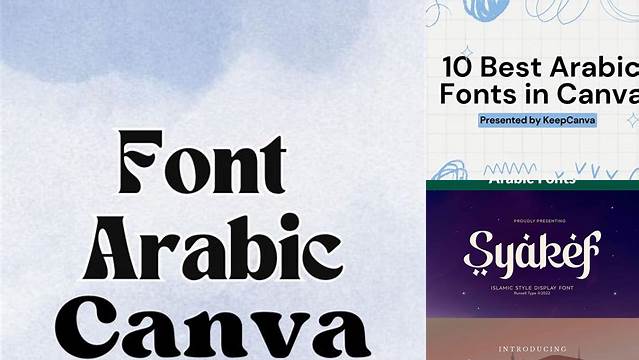
Free Arabic Fonts For Canva: Design Like A Pro!
Hey guys! Are you looking to spice up your Canva designs with some stunning Arabic fonts? Well, you've come to the right place! Designing with Arabic fonts can add a unique and authentic touch to your projects, whether you're creating social media graphics, presentations, or marketing materials. Let's dive into the world of free Arabic fonts you can use directly in Canva to make your designs truly stand out. Get ready to unleash your creativity!
Arabic Calligraphy Fonts for Canva
When it comes to free Arabic fonts on Canva, calligraphy fonts are a fantastic choice for adding an elegant and artistic flair to your designs. Arabic calligraphy, with its flowing lines and intricate details, has a rich history and cultural significance. Using these fonts can instantly elevate the visual appeal of your projects. For instance, imagine using a beautifully crafted calligraphy font for a wedding invitation or a poster promoting a cultural event. Canva offers a variety of free Arabic calligraphy fonts, each with its own distinct style and character. You can find fonts that mimic traditional scripts like Naskh, Thuluth, and Kufic, as well as more modern and stylized variations. Experiment with different fonts to see which one best complements your design aesthetic and conveys the desired message. Remember to consider factors such as readability and context when selecting a calligraphy font. While these fonts can be visually stunning, they may not be suitable for all types of content, especially if clarity is paramount. Always prioritize the overall impact of your design and ensure that the chosen font enhances rather than detracts from the message you're trying to communicate.
Modern Arabic Fonts on Canva
If you're aiming for a contemporary look, free Arabic fonts on Canva include several modern options that blend traditional aesthetics with a sleek, up-to-date feel. Modern Arabic fonts often feature simplified letterforms and clean lines, making them ideal for designs that require a touch of sophistication and readability. These fonts are versatile and can be used in a wide range of projects, from branding materials to website graphics. Imagine creating a logo for a tech startup using a modern Arabic font that conveys innovation and forward-thinking. Or perhaps designing a social media campaign for a fashion brand with a font that exudes style and elegance. Canva's selection of modern Arabic fonts offers plenty of choices to suit various design needs. Look for fonts that strike a balance between visual appeal and legibility. A well-designed modern font should be easy to read even at smaller sizes, ensuring that your message is clear and accessible to your audience. Don't be afraid to experiment with different font pairings and typography techniques to achieve the desired effect. Combining a modern Arabic font with a complementary Latin font can create a visually interesting and harmonious design.
Traditional Arabic Fonts in Canva
For projects that require an authentic and historical touch, free Arabic fonts on Canva also provide traditional options that hark back to the classic styles of Arabic typography. Traditional Arabic fonts are rooted in the rich heritage of Islamic calligraphy and feature letterforms that have been refined over centuries. These fonts are perfect for designs that aim to evoke a sense of tradition, culture, and timelessness. Consider using a traditional Arabic font for a book cover, a historical documentary, or a cultural heritage website. The intricate details and elegant curves of these fonts can add a layer of depth and authenticity to your designs. Canva offers a variety of traditional Arabic fonts, each with its own unique characteristics. Some fonts may closely resemble ancient scripts, while others may offer a more contemporary interpretation of traditional styles. When selecting a traditional font, it's important to consider the historical context and cultural relevance of the font. Ensure that the font aligns with the overall theme and message of your project. Also, pay attention to the readability of the font, especially if you're using it for body text. While traditional fonts can be visually stunning, they may not always be the most legible option for extended reading. Experiment with different font sizes and spacing to optimize readability.
Using Canva Font Pairing with Arabic Fonts
One of the best ways to enhance your designs is by mastering the art of font pairing, and when it comes to free Arabic fonts on Canva, this skill becomes even more crucial. Font pairing involves selecting two or more fonts that complement each other and work together harmoniously to create a visually appealing and balanced design. When pairing Arabic fonts with Latin fonts, it's important to choose fonts that share similar characteristics in terms of weight, style, and overall tone. For instance, if you're using a bold and modern Arabic font, you might pair it with a clean and sans-serif Latin font. Conversely, if you're using a more traditional and ornate Arabic font, you might pair it with a classic serif Latin font. Canva offers a variety of tools and resources to help you find the perfect font pairings for your projects. You can browse font combinations suggested by Canva's design experts, or experiment with different pairings on your own to see what works best. Pay attention to the visual hierarchy of your design and use font pairings to guide the viewer's eye. For example, you might use a bold Arabic font for headings and a lighter Latin font for body text. Remember, the goal of font pairing is to create a cohesive and visually appealing design that effectively communicates your message.
Designing Arabic Logos with Canva
Creating a logo that effectively represents your brand requires careful consideration of typography, and when it comes to free Arabic fonts on Canva, there are plenty of options to help you design a memorable and impactful logo. A well-designed logo should be visually appealing, easy to recognize, and representative of your brand's values and identity. When designing an Arabic logo with Canva, start by selecting a font that aligns with your brand's personality. If you're aiming for a modern and minimalist look, choose a clean and sans-serif Arabic font. If you're aiming for a more traditional and elegant look, choose a calligraphy-based font. Canva offers a variety of tools to customize your logo, including options to adjust font size, color, and spacing. You can also add graphic elements, such as icons and symbols, to enhance your logo's visual appeal. Experiment with different design options until you find a logo that perfectly captures your brand's essence. Remember to keep your logo simple and memorable. A cluttered and overly complex logo can be difficult to read and recognize. Also, ensure that your logo is scalable and looks good at different sizes, from small icons to large banners. By leveraging Canva's design tools and free Arabic fonts, you can create a professional-looking logo that helps your brand stand out from the competition.
Free Arabic Font Styles in Canva
Exploring the diverse range of free Arabic fonts styles available in Canva can significantly enhance your design capabilities. Canva offers a variety of Arabic font styles, each with its own unique characteristics and applications. From bold and impactful fonts to delicate and elegant scripts, you can find the perfect font to match your design's aesthetic. Understanding the different Arabic font styles can help you make informed decisions about typography and create visually appealing designs. Some popular Arabic font styles include Kufic, Naskh, Thuluth, and Diwani, each with its own historical and cultural significance. Kufic is known for its angular and geometric letterforms, making it ideal for logos and headings. Naskh is a more rounded and legible script, often used for body text and documents. Thuluth is a decorative and ornate script, often used for calligraphy and religious texts. Diwani is a flowing and cursive script, known for its elegance and sophistication. By exploring these different font styles, you can discover new ways to express your creativity and add depth to your designs. Experiment with different font combinations and typography techniques to achieve the desired effect. Remember to consider the context and purpose of your design when selecting a font style. A font that works well for a logo may not be suitable for body text, and vice versa.
Best Arabic Fonts for Social Media Graphics on Canva
When designing social media graphics, selecting the right font is crucial for capturing attention and conveying your message effectively. With a plethora of free Arabic fonts available on Canva, you can create visually stunning and engaging graphics that resonate with your target audience. The best Arabic fonts for social media graphics are those that are both visually appealing and easy to read, even at smaller sizes. Consider using bold and modern Arabic fonts for headings and captions, as they tend to stand out more on social media feeds. For body text, choose a legible and rounded Arabic font that is easy on the eyes. Canva offers a variety of pre-designed social media templates that incorporate Arabic fonts, making it easy to create professional-looking graphics in minutes. You can also customize these templates to match your brand's aesthetic and messaging. Experiment with different font pairings and color combinations to create visually appealing graphics that capture attention and drive engagement. Remember to optimize your graphics for different social media platforms, as each platform has its own size and resolution requirements. By leveraging Canva's design tools and free Arabic fonts, you can create social media graphics that help you stand out from the crowd and connect with your audience.
How to Animate Arabic Text in Canva
Adding animation to your Arabic text in Canva can bring your designs to life and make them more engaging. Canva offers a variety of animation options that you can use to create dynamic and visually appealing text effects. To animate Arabic text in Canva, simply select the text element that you want to animate and then click on the "Animate" button in the top toolbar. This will open up a panel with various animation options, such as fade, slide, and pop. Experiment with different animation effects to see which one works best for your design. You can also adjust the speed and intensity of the animation to create the desired effect. When animating Arabic text, it's important to consider the direction of the text. Arabic is written from right to left, so you may want to choose animation effects that reflect this direction. For example, you could use a slide-in animation that starts from the right side of the screen and moves towards the left. Also, be mindful of the overall design and avoid over-animating the text. Too much animation can be distracting and detract from the message you're trying to convey. By using Canva's animation tools effectively, you can create visually stunning Arabic text effects that capture attention and enhance your designs.
Arabic Font Licensing for Commercial Use in Canva
Before using any free Arabic fonts in your commercial projects on Canva, it's crucial to understand the licensing terms associated with each font. Font licenses specify how you are allowed to use the font, including whether you can use it for commercial purposes. Some fonts are free for personal use only, while others are free for both personal and commercial use. Canva provides information about the licensing terms for each font in its library. You can usually find this information in the font details section. If you're unsure about the licensing terms of a particular font, it's always best to err on the side of caution and contact the font designer or foundry for clarification. Using a font without the proper license can result in legal issues and financial penalties. When using free Arabic fonts for commercial use in Canva, make sure to keep a record of the font's license agreement. This will help you demonstrate that you have the necessary rights to use the font in your projects. Also, be aware that some font licenses may require you to give attribution to the font designer or foundry. By understanding and adhering to font licensing terms, you can protect yourself from legal issues and ensure that you're using fonts responsibly.
Creating Bilingual Designs with Arabic Fonts on Canva
In today's globalized world, creating bilingual designs is becoming increasingly important, and Canva makes it easy to incorporate free Arabic fonts alongside other languages. Designing with both Arabic and another language, such as English, can broaden your reach and appeal to a wider audience. When creating bilingual designs with Arabic fonts on Canva, it's important to choose fonts that complement each other visually and stylistically. Consider using a modern Arabic font with a clean and sans-serif Latin font, or a traditional Arabic font with a classic serif Latin font. Canva offers a variety of tools to adjust the size, spacing, and alignment of your text, making it easy to create visually balanced and harmonious bilingual designs. Pay attention to the visual hierarchy of your design and use font pairings to guide the viewer's eye. For example, you might use a bold Arabic font for headings and a lighter Latin font for body text. Also, be mindful of the cultural context of your design and ensure that the Arabic and other languages are presented in a respectful and appropriate manner. By using Canva's design tools and free Arabic fonts effectively, you can create bilingual designs that resonate with your target audience and help you achieve your communication goals.
Arabic Font Generators Compatible with Canva
While Canva offers a variety of free Arabic fonts, you might want to explore other options and create your own unique font styles. Arabic font generators can help you create custom Arabic fonts that you can then upload to Canva and use in your designs. These font generators typically allow you to customize various aspects of the font, such as the letterforms, weight, and spacing. Some popular Arabic font generators include FontStruct, BirdFont, and MetaFont. Before using an Arabic font generator, it's important to understand the licensing terms associated with the generated fonts. Some font generators may allow you to use the generated fonts for commercial purposes, while others may restrict their use to personal projects. Also, be aware that creating a high-quality Arabic font can be a time-consuming and complex process. It requires a good understanding of Arabic calligraphy and typography principles. If you're not familiar with these principles, you may want to consider using pre-made Arabic fonts instead. However, if you're looking to create a truly unique and personalized design, using an Arabic font generator can be a great option. Just make sure to do your research and understand the licensing terms before using the generated fonts in your projects.
Resources for Learning Arabic Typography for Canva Users
To make the most of free Arabic fonts on Canva, it's beneficial to deepen your understanding of Arabic typography. Learning the fundamentals of Arabic typography can help you create more visually appealing and effective designs. There are many resources available online and in print that can help you learn about Arabic typography, including books, articles, tutorials, and online courses. Some popular resources for learning Arabic typography include "Arabic Typography: A Comprehensive Sourcebook" by Huda Smitshuijzen AbiFares, "The Art of Arabic Calligraphy" by Mamoun Sakkal, and various online tutorials and courses available on platforms like Skillshare and Udemy. These resources cover a wide range of topics, including the history of Arabic calligraphy, the different Arabic script styles, and the principles of Arabic typography. By studying these resources, you can gain a deeper appreciation for the beauty and complexity of Arabic typography and learn how to use Arabic fonts effectively in your designs. Also, consider joining online communities and forums dedicated to Arabic typography, where you can connect with other designers and learn from their experiences. By continuously learning and expanding your knowledge of Arabic typography, you can create visually stunning and culturally sensitive designs that resonate with your target audience.
The Impact of Arabic Fonts on Cultural Design in Canva
Using free Arabic fonts in Canva can significantly enhance the cultural relevance and impact of your designs. Arabic fonts are an integral part of Arabic culture and heritage, and using them in your designs can help you connect with your audience on a deeper level. When designing for Arabic-speaking audiences or creating designs that celebrate Arabic culture, it's important to choose fonts that are authentic and respectful. Avoid using fonts that are poorly designed or that misrepresent Arabic calligraphy traditions. Canva offers a variety of high-quality Arabic fonts that are suitable for cultural design projects. Consider using traditional Arabic fonts for projects that aim to evoke a sense of history and tradition, and modern Arabic fonts for projects that aim to convey a contemporary and forward-thinking message. Also, be mindful of the cultural context of your design and ensure that the fonts are used in a way that is appropriate and respectful. For example, avoid using religious fonts in designs that are not related to religion. By using Arabic fonts thoughtfully and respectfully, you can create designs that celebrate Arabic culture and heritage and that resonate with your target audience. Remember to research the cultural significance of different fonts and design elements to ensure that your designs are culturally sensitive and appropriate.
Free vs Premium Arabic Fonts for Canva: What to Choose?
When choosing free Arabic fonts for your Canva projects, you might wonder whether to opt for free or premium options. Both free and premium Arabic fonts have their own advantages and disadvantages, and the best choice for you will depend on your specific needs and budget. Free Arabic fonts are a great option if you're on a tight budget or if you're just starting out with design. They can provide you with a wide range of options to experiment with and create visually appealing designs. However, free Arabic fonts may not always be of the highest quality, and they may have limited licensing terms. Premium Arabic fonts, on the other hand, typically offer higher quality designs, more comprehensive licensing terms, and additional features such as alternate characters and ligatures. They can also provide you with access to more unique and exclusive font styles. However, premium Arabic fonts can be more expensive than free fonts, and they may not be necessary for all projects. When deciding between free and premium Arabic fonts, consider the following factors: the quality of the font, the licensing terms, the features offered, and your budget. If you need a high-quality font for a commercial project, it may be worth investing in a premium option. However, if you're just creating designs for personal use, a free font may be sufficient. Ultimately, the best choice for you will depend on your individual needs and preferences.
Mastering Arabic Typography in Canva: Tips and Tricks
To truly master the art of using free Arabic fonts in Canva, it's essential to learn some key tips and tricks. Mastering Arabic typography can help you create visually stunning and effective designs that capture attention and convey your message effectively. One important tip is to pay attention to the kerning and tracking of your Arabic fonts. Kerning refers to the spacing between individual letters, while tracking refers to the overall spacing between all letters in a word or phrase. Adjusting the kerning and tracking can improve the readability and visual appeal of your text. Canva offers tools to adjust the kerning and tracking of your fonts, allowing you to fine-tune the appearance of your text. Another tip is to experiment with different font sizes and line heights. The size of your font can affect its readability and impact, while the line height can affect the overall flow of your text. Canva allows you to easily adjust the font size and line height of your text, giving you full control over its appearance. Additionally, consider using different font weights and styles to create visual hierarchy and emphasize key words or phrases. Canva offers a variety of font weights and styles, such as bold, italic, and underline, that you can use to add visual interest to your text. By mastering these tips and tricks, you can create visually stunning and effective Arabic typography in Canva.
Common Mistakes to Avoid When Using Arabic Fonts in Canva
Even with a great selection of free Arabic fonts in Canva, it's easy to make mistakes if you're not careful. Avoiding common pitfalls when using Arabic fonts can help you create more professional and visually appealing designs. One common mistake is using fonts that are not legible. Arabic fonts can be intricate and complex, and some fonts may be difficult to read, especially at smaller sizes. Always choose fonts that are clear and easy to read, even when scaled down. Another common mistake is using fonts that are not appropriate for the context of your design. For example, using a religious font in a secular design can be inappropriate and disrespectful. Always consider the cultural and social context of your design when choosing Arabic fonts. Additionally, avoid using too many different fonts in a single design. Using too many fonts can create a cluttered and chaotic look. Stick to a limited number of fonts that complement each other and work well together. Also, be mindful of the alignment and spacing of your text. Poor alignment and spacing can make your text look unprofessional and difficult to read. Use Canva's alignment and spacing tools to ensure that your text is properly aligned and spaced. By avoiding these common mistakes, you can create more professional and visually appealing designs with Arabic fonts in Canva.
Future Trends in Arabic Typography and Canva Design
The world of Arabic typography is constantly evolving, and staying up-to-date with future trends can help you create cutting-edge designs in Canva. As technology advances and design aesthetics change, new trends in Arabic typography are emerging. One trend is the increasing use of variable fonts. Variable fonts allow you to adjust various aspects of the font, such as weight, width, and slant, giving you more control over the appearance of your text. Canva is likely to support variable fonts in the future, allowing you to create even more dynamic and customizable designs. Another trend is the integration of Arabic typography with augmented reality (AR) and virtual reality (VR). As AR and VR technologies become more widespread, designers are exploring new ways to use Arabic typography in immersive experiences. Canva may also incorporate AR and VR features in the future, allowing you to create interactive and engaging designs with Arabic fonts. Additionally, there is a growing emphasis on cultural sensitivity and authenticity in design. Designers are becoming more aware of the importance of using Arabic fonts in a respectful and appropriate manner, and they are seeking out fonts that accurately represent Arabic culture and heritage. Canva is likely to continue to expand its selection of high-quality Arabic fonts that are culturally sensitive and authentic. By staying informed about future trends in Arabic typography and Canva design, you can create innovative and impactful designs that resonate with your audience.
Integrating Arabic Fonts with Canva Templates
Using free Arabic fonts within Canva templates is a fantastic way to streamline your design process and maintain consistency. Canva offers a vast library of pre-designed templates that you can customize to create professional-looking designs in minutes. Integrating Arabic fonts with these templates can help you create designs that are both visually appealing and culturally relevant. When using Arabic fonts with Canva templates, start by selecting a template that aligns with your design goals. Then, replace the existing fonts with your chosen Arabic fonts. Canva allows you to easily change the font of any text element within a template, giving you full control over the typography. Pay attention to the overall design of the template and choose Arabic fonts that complement the existing elements. Consider using traditional Arabic fonts for templates that evoke a sense of history and tradition, and modern Arabic fonts for templates that aim to convey a contemporary and forward-thinking message. Also, be mindful of the alignment and spacing of your text within the template. Use Canva's alignment and spacing tools to ensure that your text is properly aligned and spaced. By integrating Arabic fonts with Canva templates effectively, you can create professional-looking designs that are both visually stunning and culturally relevant.
How to Ensure Readability with Arabic Fonts on Canva
Ensuring readability is paramount when working with free Arabic fonts on Canva. No matter how beautiful a font is, it's useless if your audience can't easily read it. Here's how to make sure your Arabic text is legible and engaging:
- Choose the Right Font: Select fonts designed for readability, especially for body text. Simpler, less ornate fonts are often better choices.
- Adjust Font Size: Make sure the font size is large enough to be easily read on different devices and screen sizes.
- Line Height and Spacing: Increase the line height (leading) and letter spacing (tracking) to give the letters more room to breathe. This can significantly improve readability.
- Contrast: Ensure there's sufficient contrast between the text color and the background. Dark text on a light background is generally easiest to read.
- Avoid Overcrowding: Don't cram too much text into a small area. Give your text room to breathe by using white space effectively.
- Test on Different Devices: Always test your designs on different devices and screen sizes to ensure that the text remains readable.
By following these tips, you can ensure that your Arabic text is both visually appealing and easy to read, creating a positive experience for your audience.
Creating Eye-Catching Headlines with Arabic Fonts on Canva
Crafting compelling headlines is crucial for grabbing attention, and using the right free Arabic fonts in Canva can make all the difference. Here's how to create eye-catching headlines that draw your audience in:
- Choose Bold Fonts: Opt for bold or display fonts that stand out and command attention. These fonts are designed to be noticed.
- Use Contrast Effectively: Create contrast by using different font weights or colors to highlight key words or phrases.
- Experiment with Font Combinations: Try pairing a bold Arabic font with a simpler Latin font for a visually interesting and balanced look.
- Add Visual Elements: Incorporate visual elements such as icons, shapes, or lines to enhance your headlines and make them more engaging.
- Keep It Concise: Headlines should be short, punchy, and to the point. Avoid using overly long or complicated phrases.
- Test Different Options: Experiment with different font choices and design techniques to see what resonates best with your audience.
By following these tips, you can create eye-catching headlines that grab attention and effectively communicate your message.
Designing Arabic Posters with Canva's Free Fonts
Designing posters that effectively communicate your message requires careful attention to typography, and Canva's selection of free Arabic fonts offers plenty of options to create stunning visuals. Here's how to design impactful Arabic posters using Canva:
- Choose a Focal Point: Start by identifying the main message or visual element that you want to emphasize on your poster.
- Select Readable Fonts: Use fonts that are easy to read from a distance, especially for key information such as the title and date.
- Create Visual Hierarchy: Use different font sizes, weights, and styles to create a clear visual hierarchy and guide the viewer's eye.
- Use Color Strategically: Choose colors that complement your fonts and create a visually appealing and balanced design.
- Incorporate Images: Use high-quality images or illustrations to enhance your poster and make it more visually engaging.
- Keep It Simple: Avoid overcrowding your poster with too much text or too many visual elements. Simplicity is key.
By following these tips, you can create Arabic posters that effectively communicate your message and capture the attention of your target audience.
Arabic Calligraphy Generators vs. Canva Fonts: A Comparison
When working with Arabic fonts, you might wonder whether to use Arabic calligraphy generators or stick to Canva's built-in fonts. Both options have their pros and cons, and the best choice for you will depend on your specific needs and preferences. Arabic calligraphy generators allow you to create custom calligraphy designs with unique and personalized styles. These generators often offer a wide range of options for customizing the letterforms, spacing, and overall appearance of the text. However, using Arabic calligraphy generators can be more time-consuming and require a good understanding of Arabic calligraphy principles. Canva's built-in free Arabic fonts, on the other hand, are readily available and easy to use. They offer a variety of styles to choose from, and you can quickly incorporate them into your designs. However, Canva's font selection may be limited compared to the options available in Arabic calligraphy generators. When deciding between Arabic calligraphy generators and Canva fonts, consider the following factors: the level of customization you need, your familiarity with Arabic calligraphy principles, and the time you have available. If you need a highly customized calligraphy design, an Arabic calligraphy generator may be the best option. However, if you're looking for a quick and easy way to add Arabic fonts to your designs, Canva's built-in fonts are a great choice.
The Psychology of Using Arabic Fonts in Design with Canva
The choice of font can significantly impact how your design is perceived. Here’s a look at the psychology behind using free Arabic fonts effectively in Canva:
- Traditional Fonts: Evoke feelings of history, culture, and authenticity. They're great for projects needing a sense of heritage.
- Modern Fonts: Convey innovation, simplicity, and a contemporary feel. Ideal for projects targeting a younger audience or tech-related content.
- Calligraphic Fonts: Add elegance, artistry, and a touch of luxury. Perfect for invitations, branding, or projects where sophistication is key.
Understanding the emotions and associations tied to different font styles can help you create designs that resonate with your audience on a deeper level. Always consider the overall message and tone you want to convey when selecting fonts.
Step-by-Step Guide: Creating Animated Arabic Text Videos in Canva
Animated videos can be incredibly engaging, and Canva makes it easy to create them with Arabic text. Here's a step-by-step guide to get you started with free Arabic fonts:
- Choose a Template: Start with a blank canvas or select a video template that suits your project.
- Add Your Arabic Text: Use the text tool to add your Arabic text to the canvas. Choose an appropriate font and size.
- Animate the Text: Select the text element and click the "Animate" button. Explore the various animation options like fade, slide, pop, and more.
- Adjust Timing: Fine-tune the timing of the animation to match your desired pace and rhythm. You can adjust the duration and delay of each animation.
- Add Background Elements: Enhance your video by adding background images, videos, or graphics that complement your text.
- Preview and Adjust: Preview your video to ensure that everything looks and flows smoothly. Make any necessary adjustments to the animation, timing, or design.
- Download Your Video: Once you're satisfied with your video, download it in your preferred format (MP4 is a good choice for most platforms).
With Canva's user-friendly interface and animation tools, creating engaging Arabic text videos is easier than ever.
Designing Interactive Arabic Presentations with Canva
Interactive presentations can captivate your audience, and Canva provides the tools to create them using free Arabic fonts. Here’s how:
- Start with a Template: Choose a presentation template that suits your topic and style.
- Add Engaging Content: Incorporate a mix of text, images, videos, and interactive elements to keep your audience engaged.
- Use Arabic Fonts: Select readable and visually appealing Arabic fonts for your headings and body text.
- Incorporate Animations: Add subtle animations to your text and images to create visual interest and guide the viewer's eye.
- Add Interactive Elements: Use Canva's interactive elements, such as buttons, quizzes, and polls, to encourage audience participation.